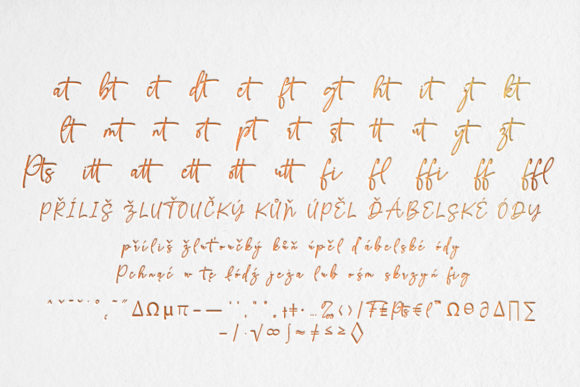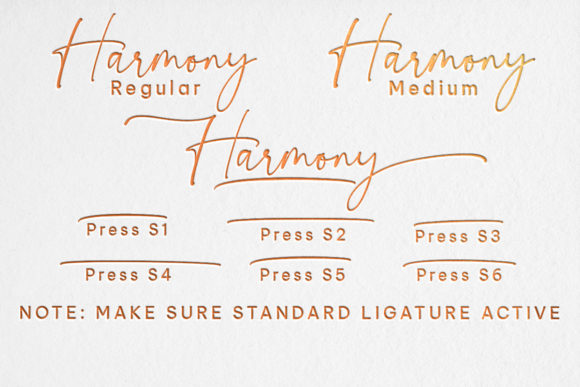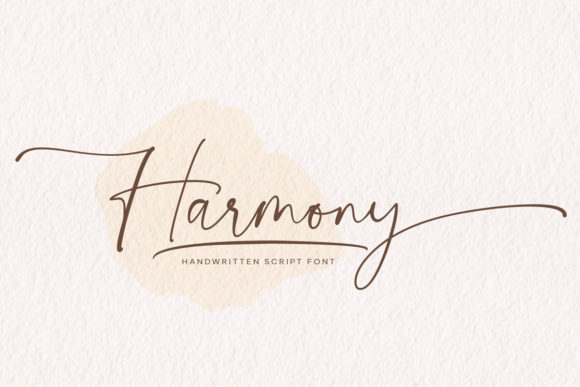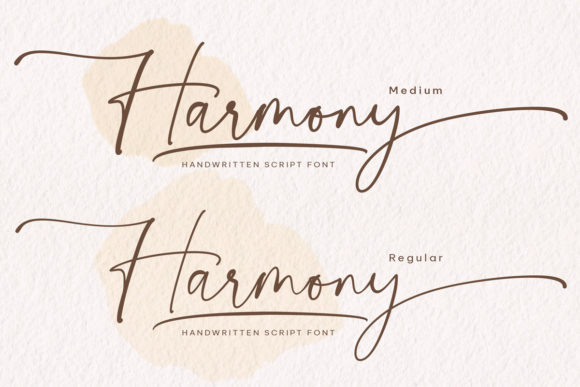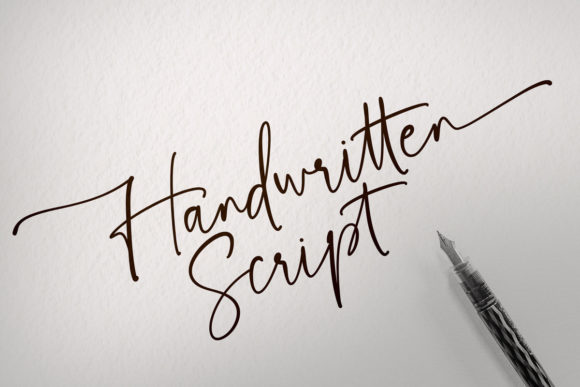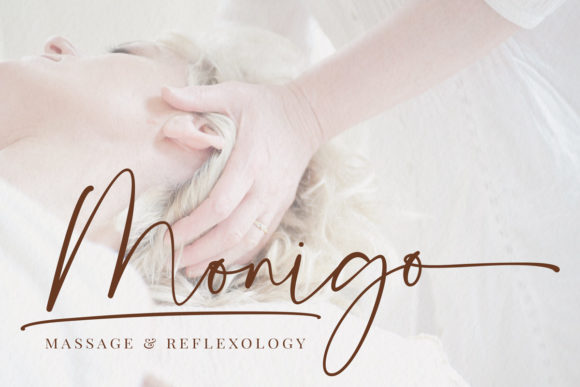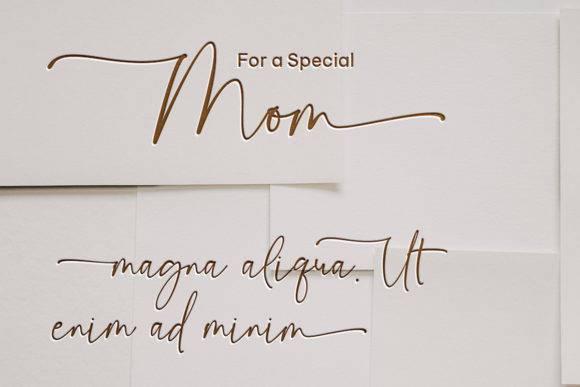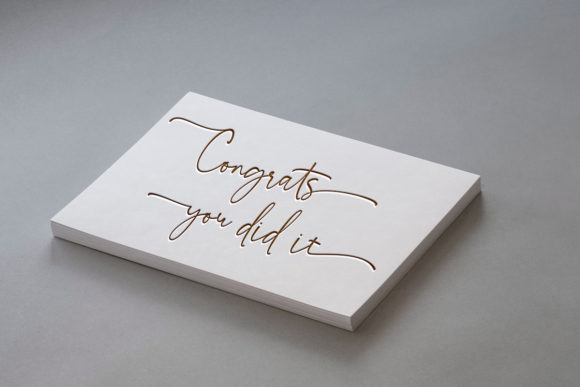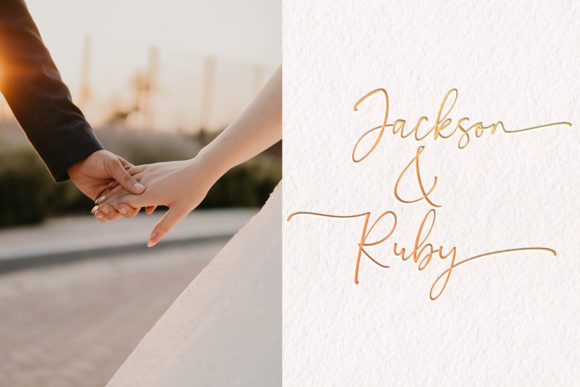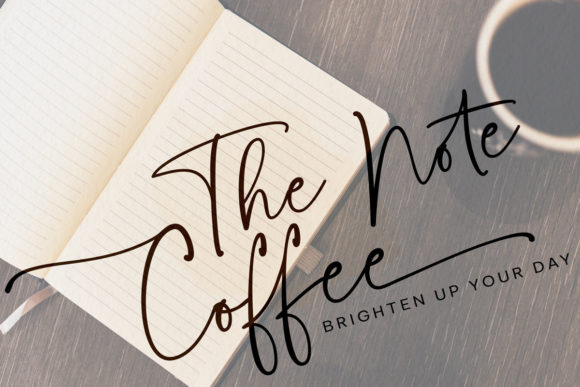
Harmony Font
About Harmony Font
Harmony is an exquisite handwritten font, masterfully designed to become a true favorite. that comes with beautiful ligatures and lovely alternates. Harmony has a very beautiful stroke and it will suit various wedding invitations, fashion cards, and more. This font is PUA encoded which means you can access all of the glyphs and swashes with ease!